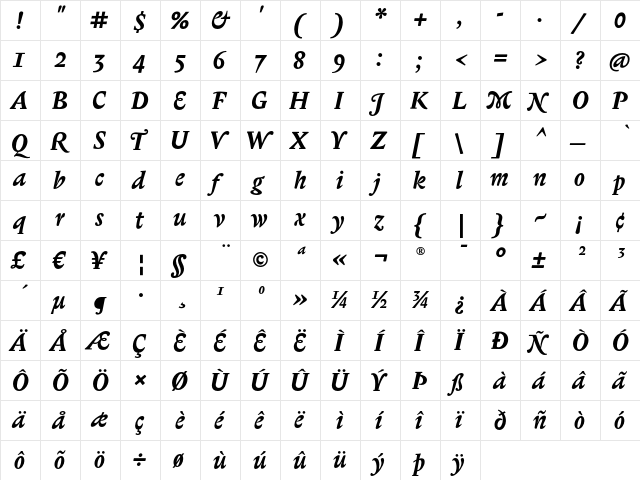
Biblon ITC Swash Bold Italic Font Preview
Design Context for Biblon ITC Swash Typeface
Biblon ITC Swash brings a calligraphic fluidity to the page — its connecting strokes and expressive curves give it an unmistakably human quality. Its bold stroke weight gives it real presence on the page.
Font Pairing: Combine Biblon ITC Swash with a simple geometric sans for maximum contrast — the tension between flowing curves and clean structure is a classic typographic pairing.
Pro Tip: Pair Biblon ITC Swash with a clean sans-serif for supporting text. The contrast between fluid script and geometric structure creates an elegant typographic hierarchy.